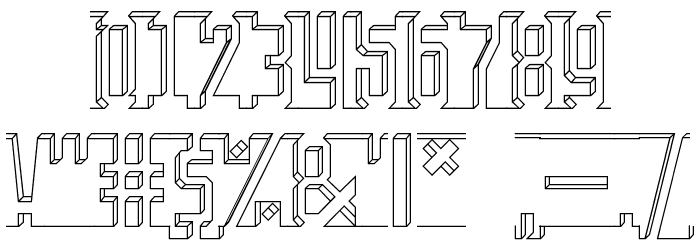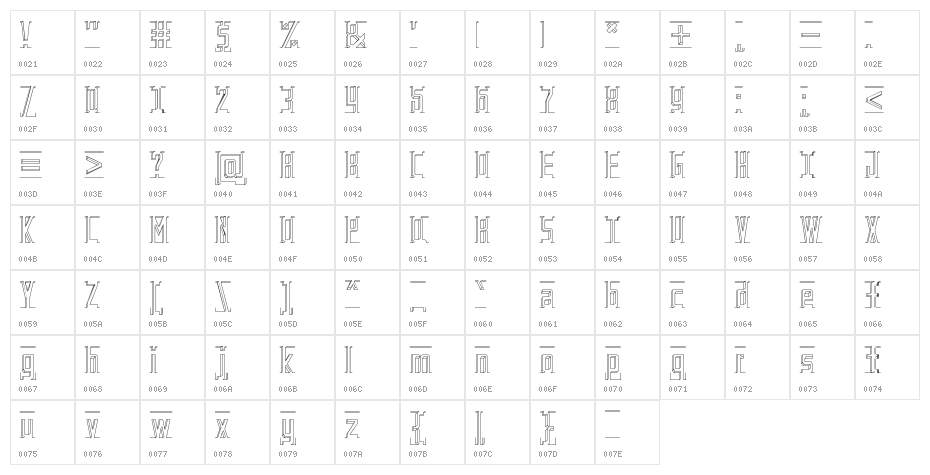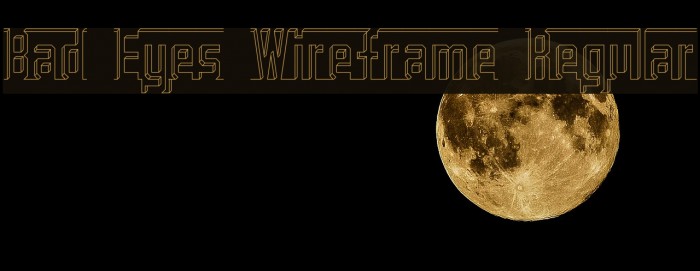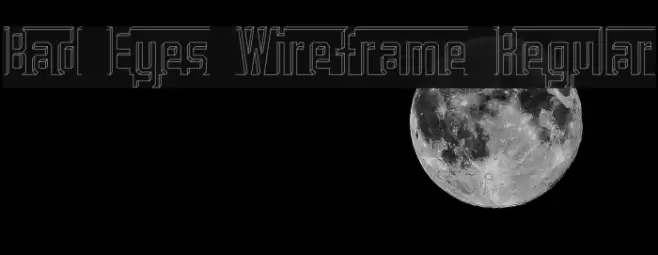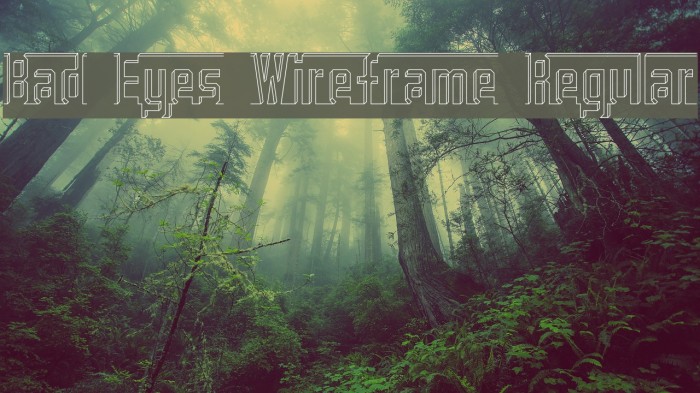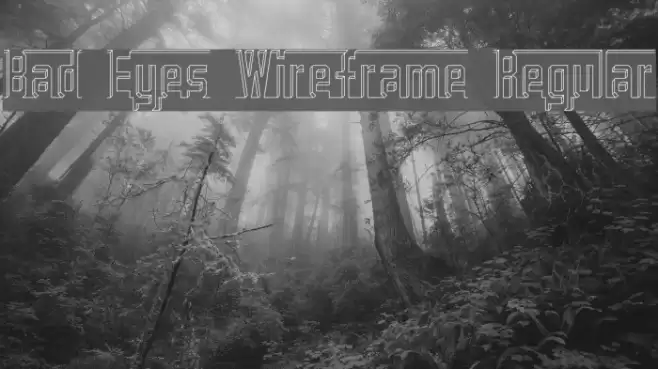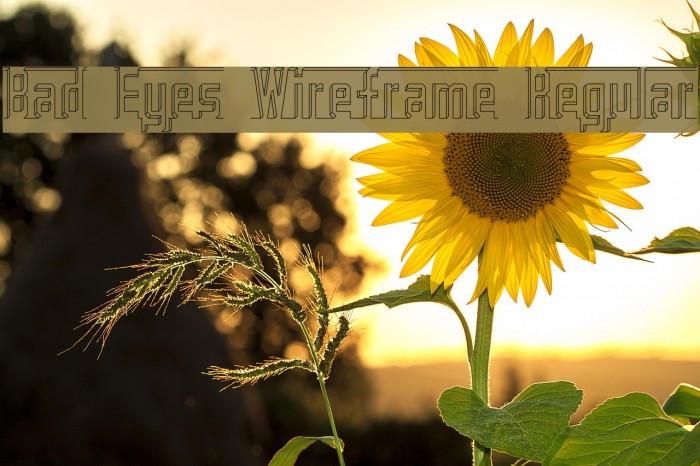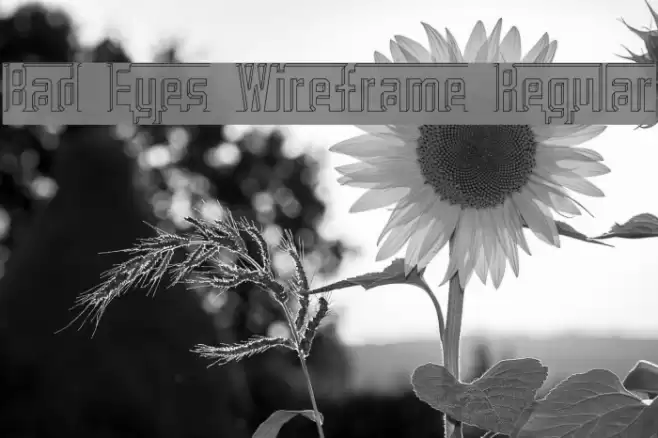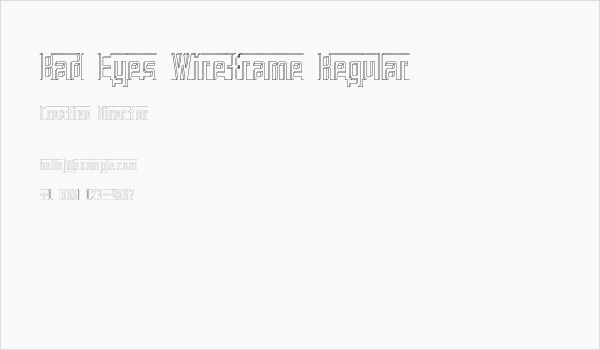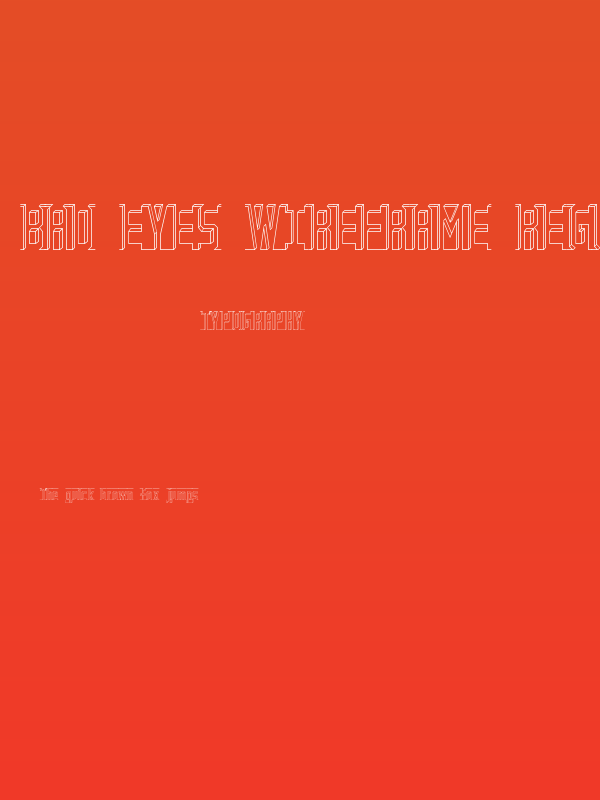
Bad Eyes Wireframe Regular Font
Bad Eyes Wireframe Regular Description
This font features a unique wireframe design, characterized by its geometric and angular shapes. The letters are outlined with a consistent stroke width, creating a three-dimensional effect that resembles a technical drawing or blueprint. The uppercase and lowercase letters maintain a uniform height, contributing to a cohesive appearance. The numerals and special characters follow the same stylistic approach, ensuring visual harmony across all elements. This font's distinct style makes it ideal for projects that require a modern, industrial, or futuristic aesthetic.
Proposed ProjectsIdeal for tech-themed designs, architectural presentations, futuristic branding, and digital artwork.